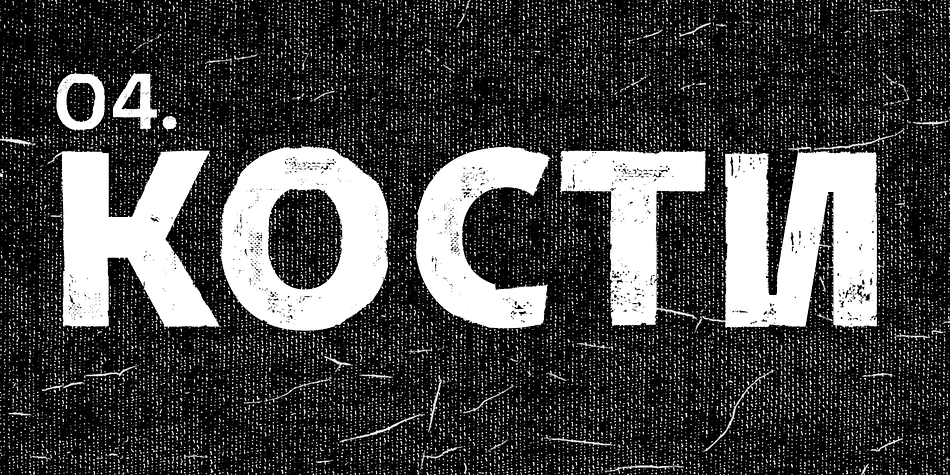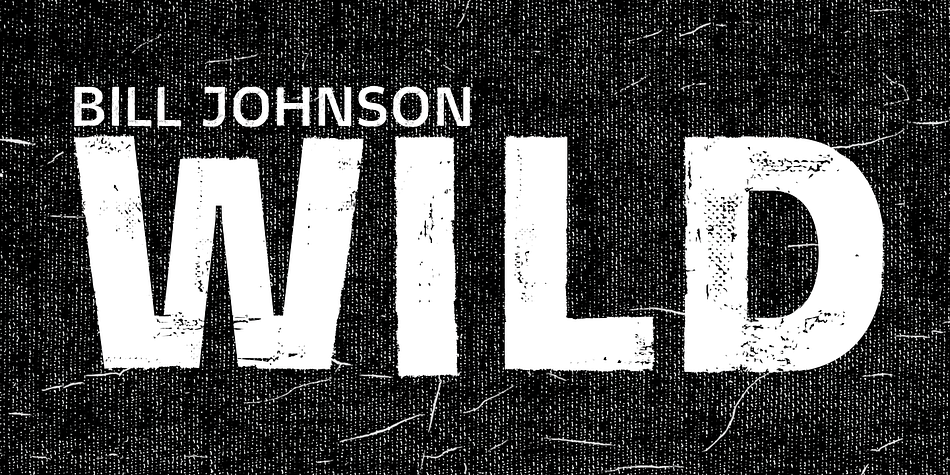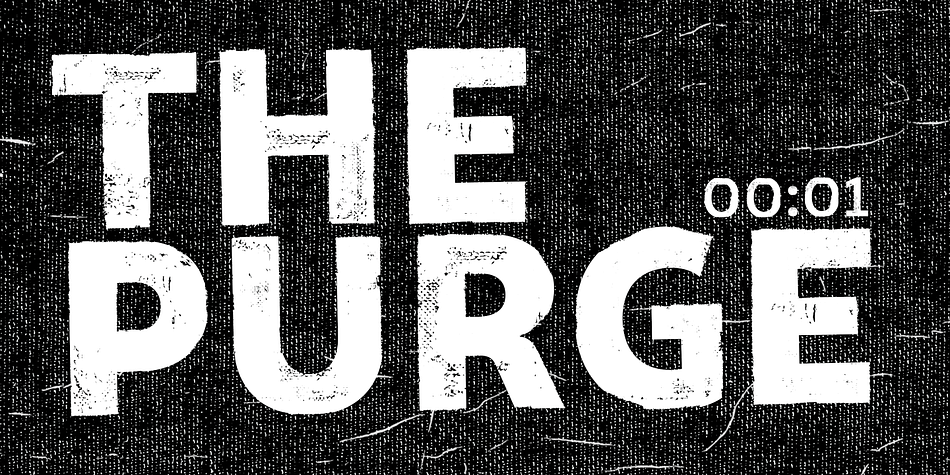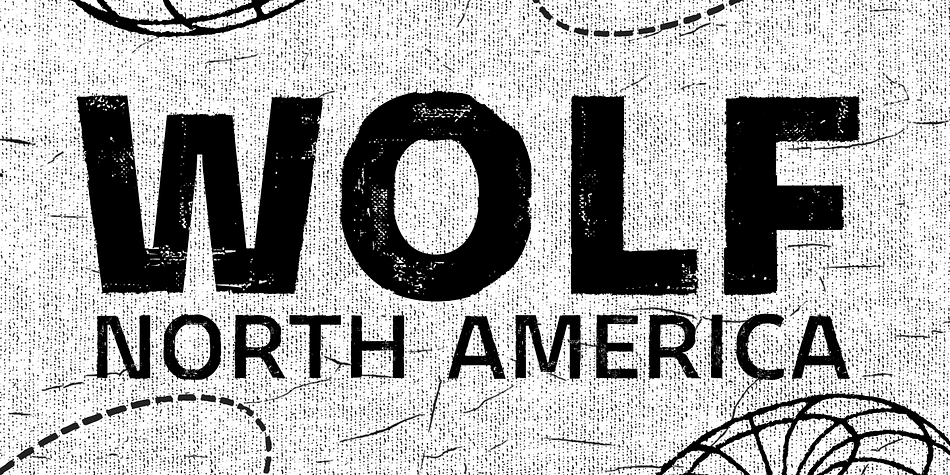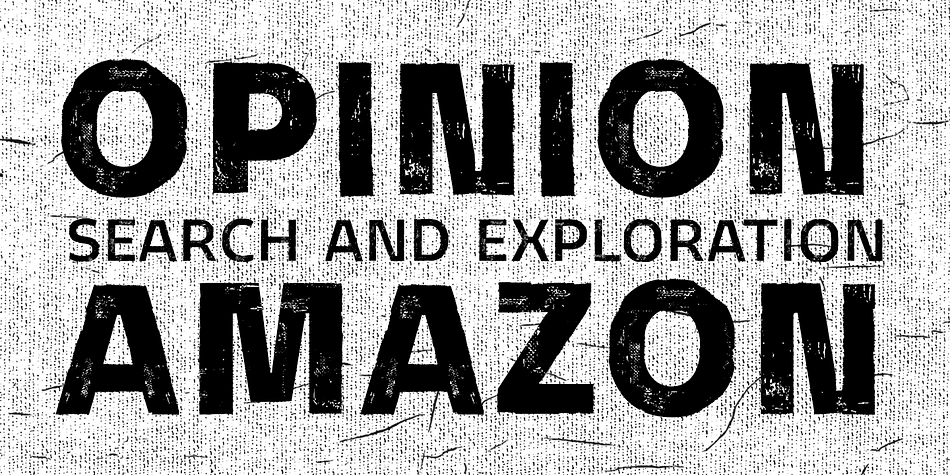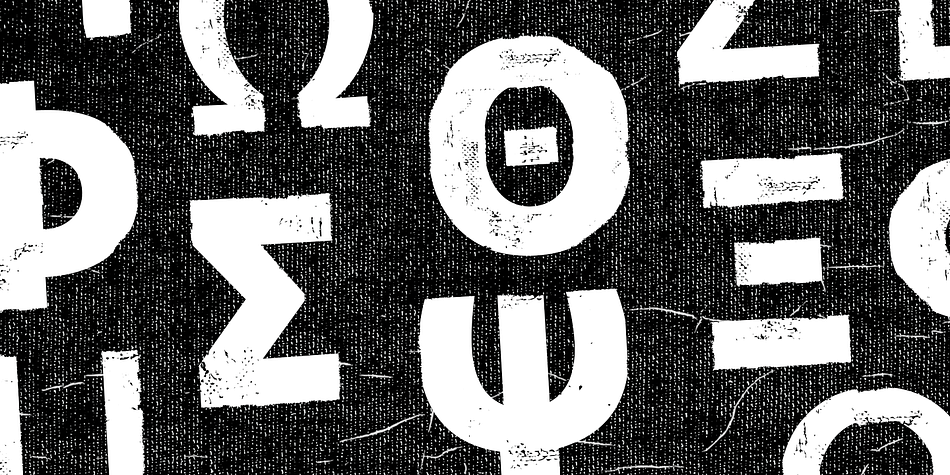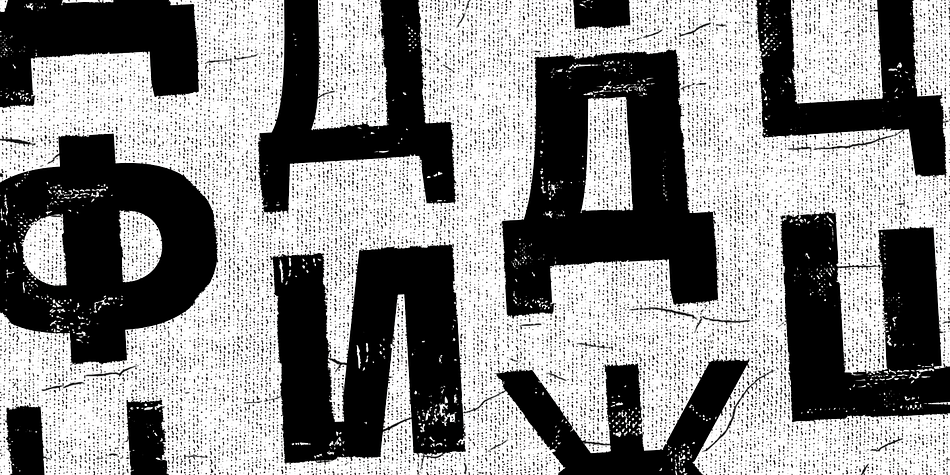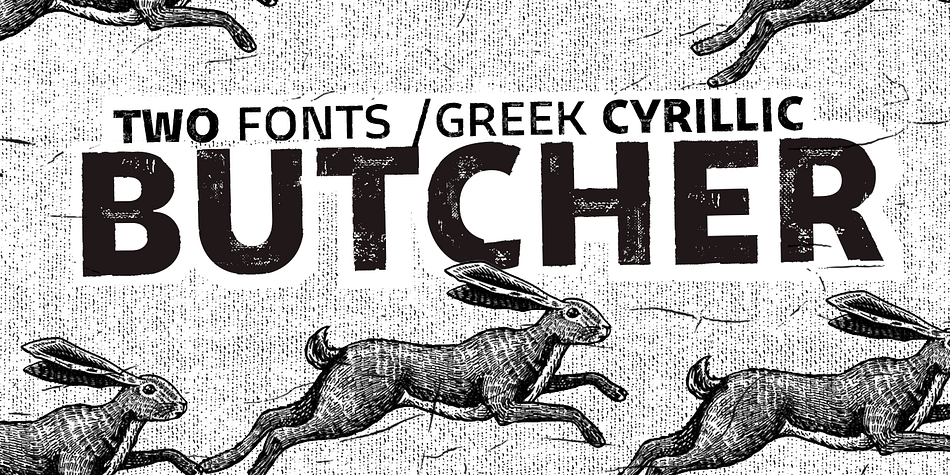
BUTCHER
Designed by Rodrigo Araya Salas, Butcher is a display sans font family. This typeface has two styles and was published by Rodrigo Typo.
Butcher is a font with 2 styles, a medium and a black to play with the weights, it contains the Greek and Cyrillic alphabet